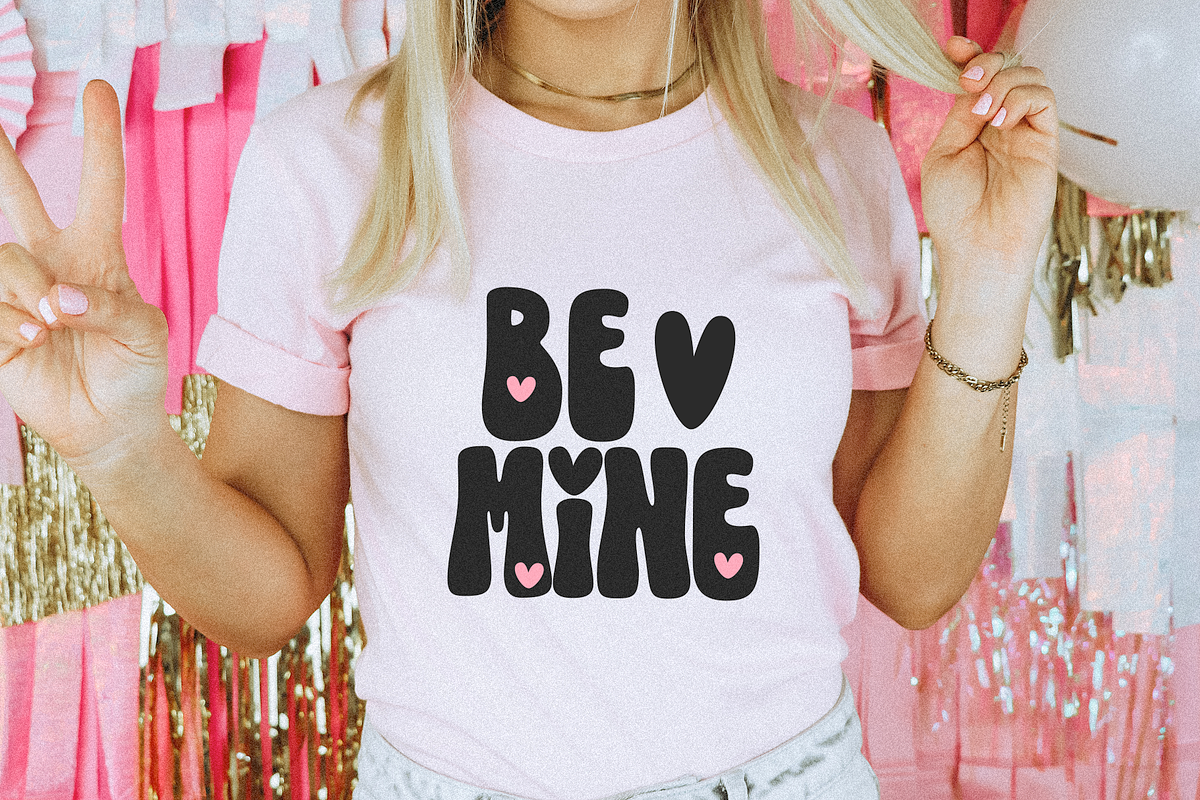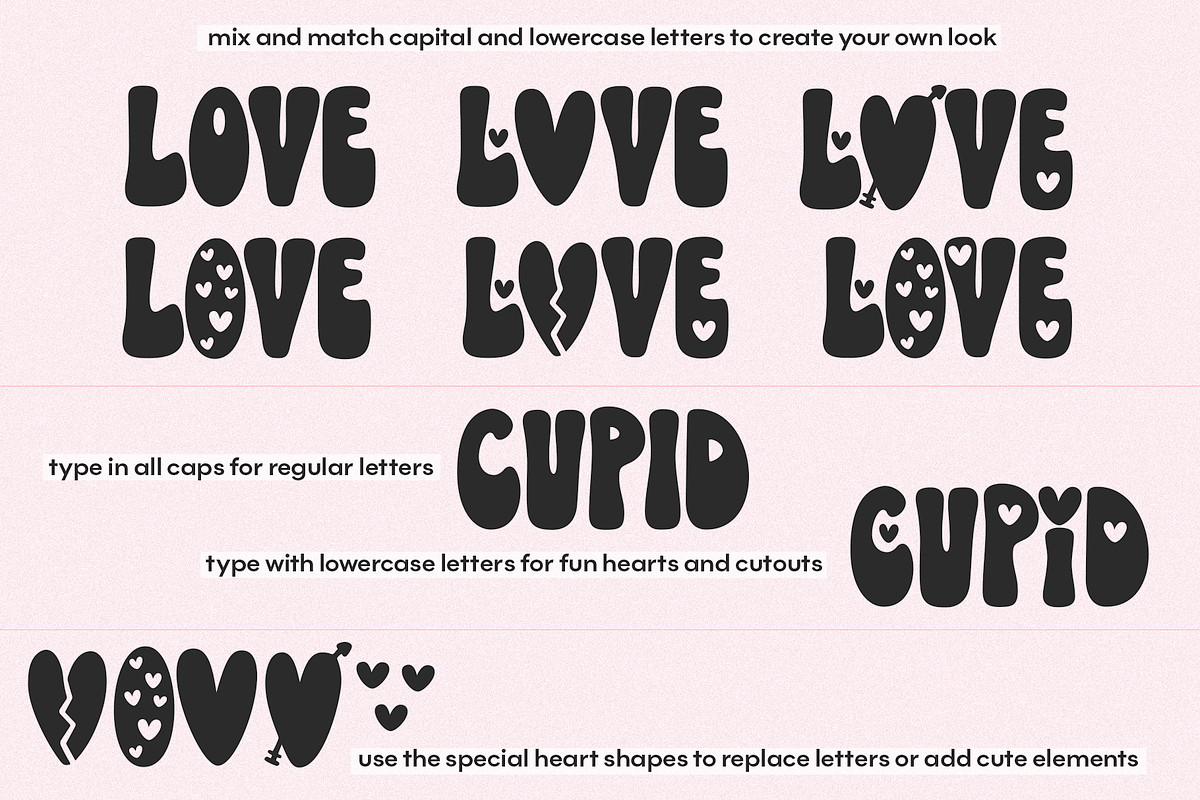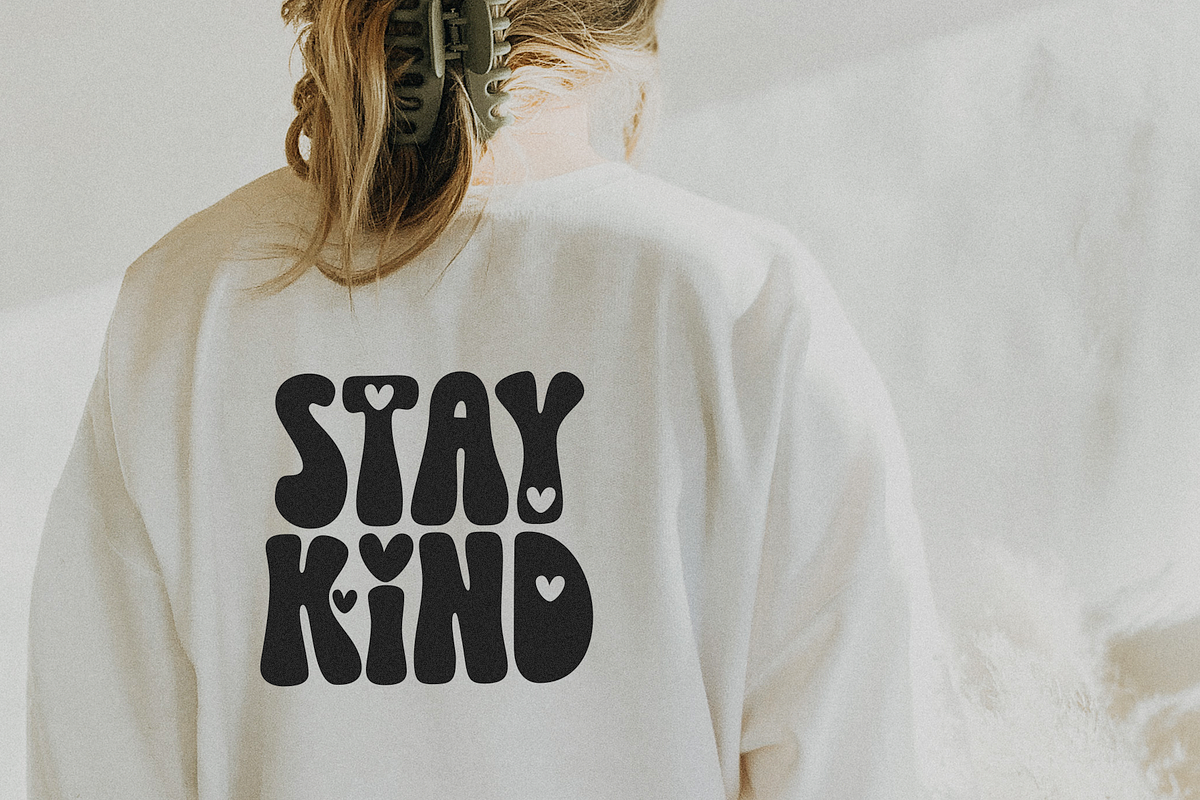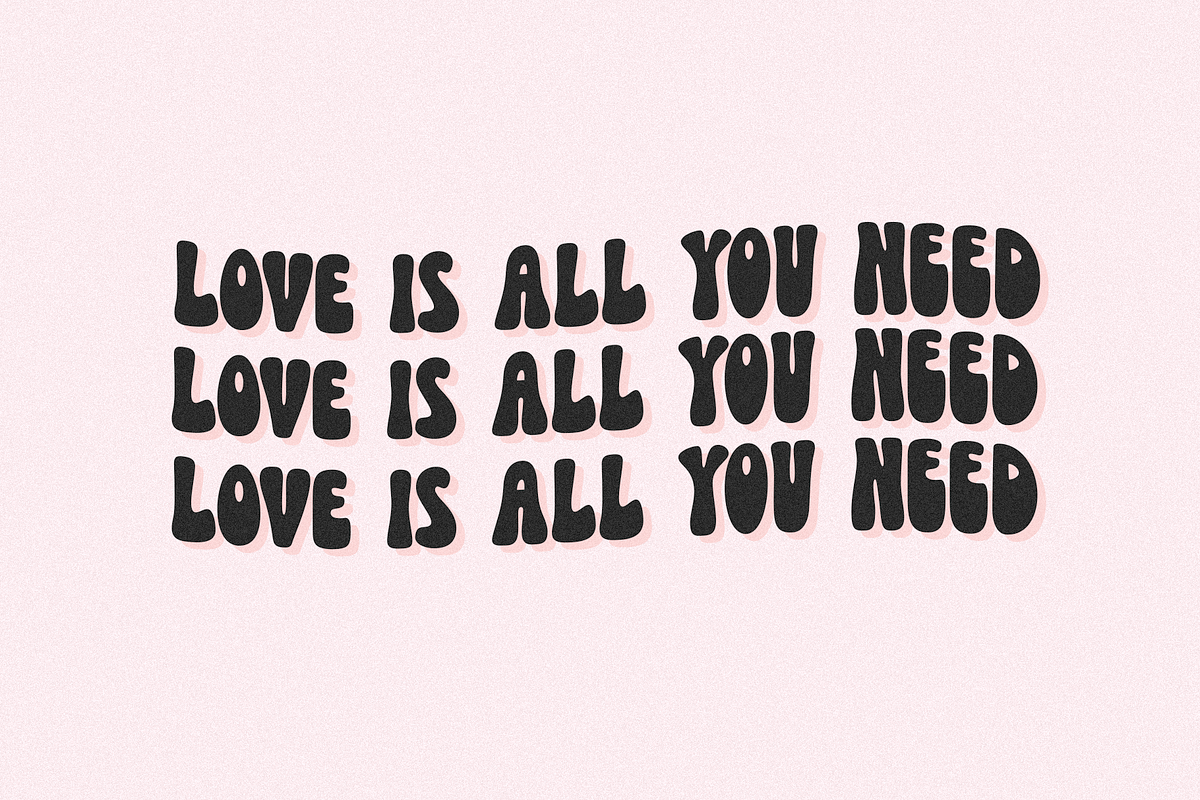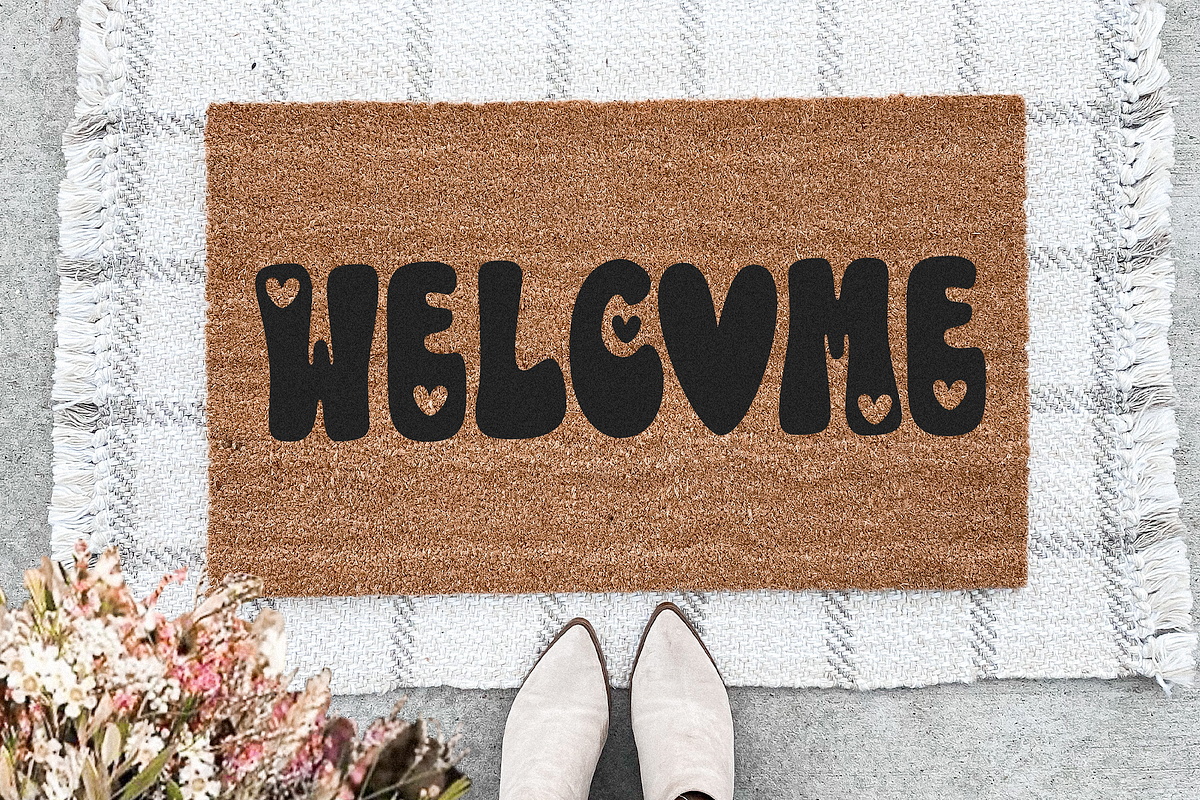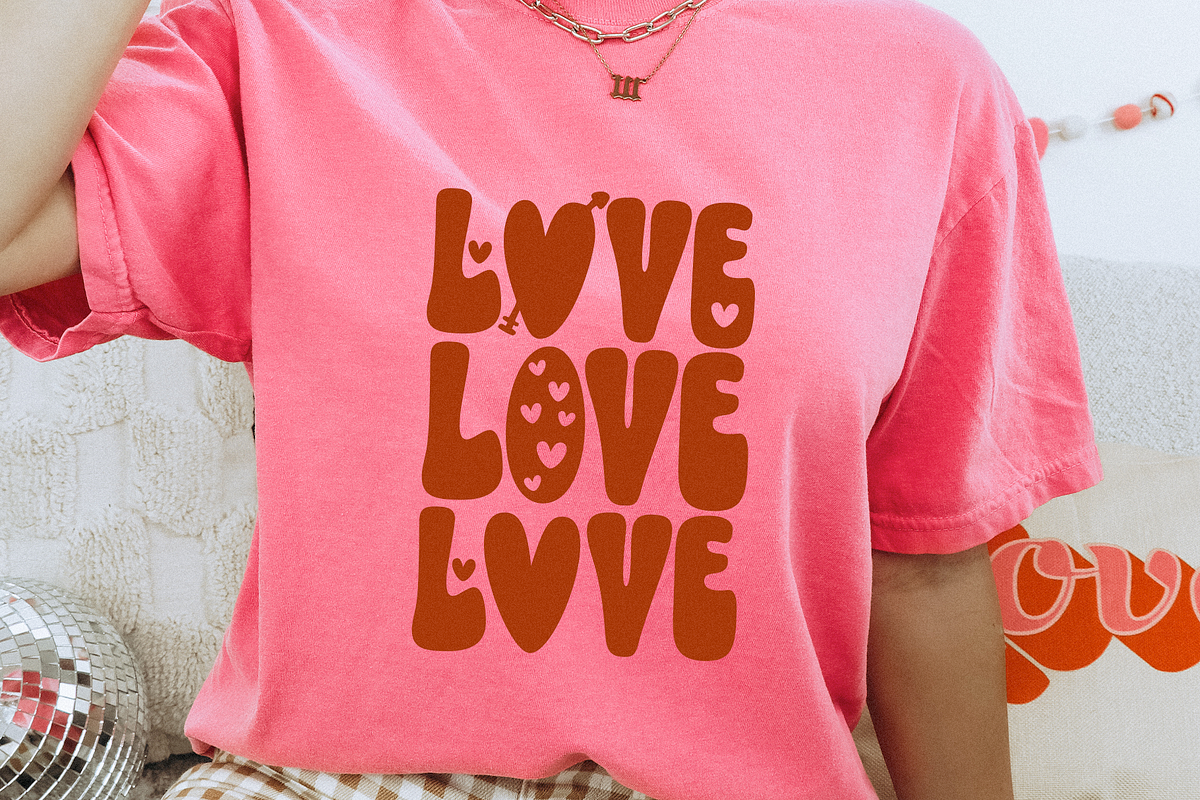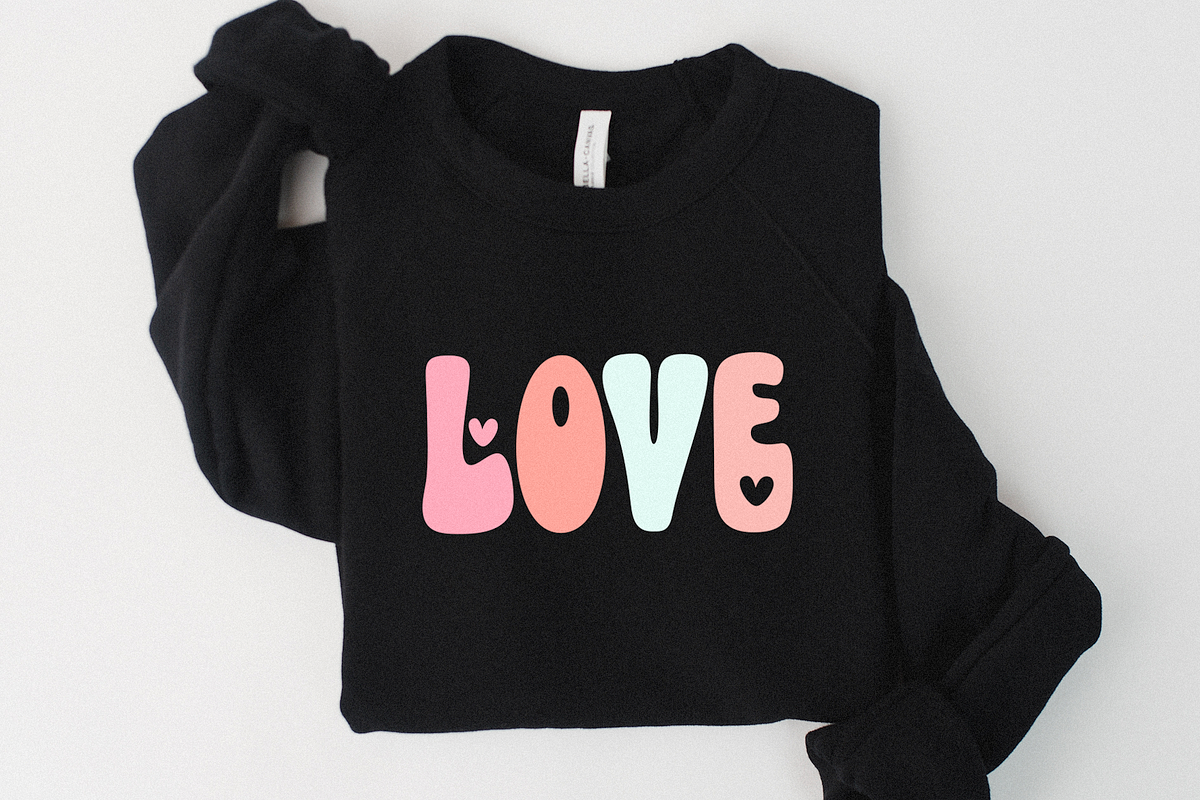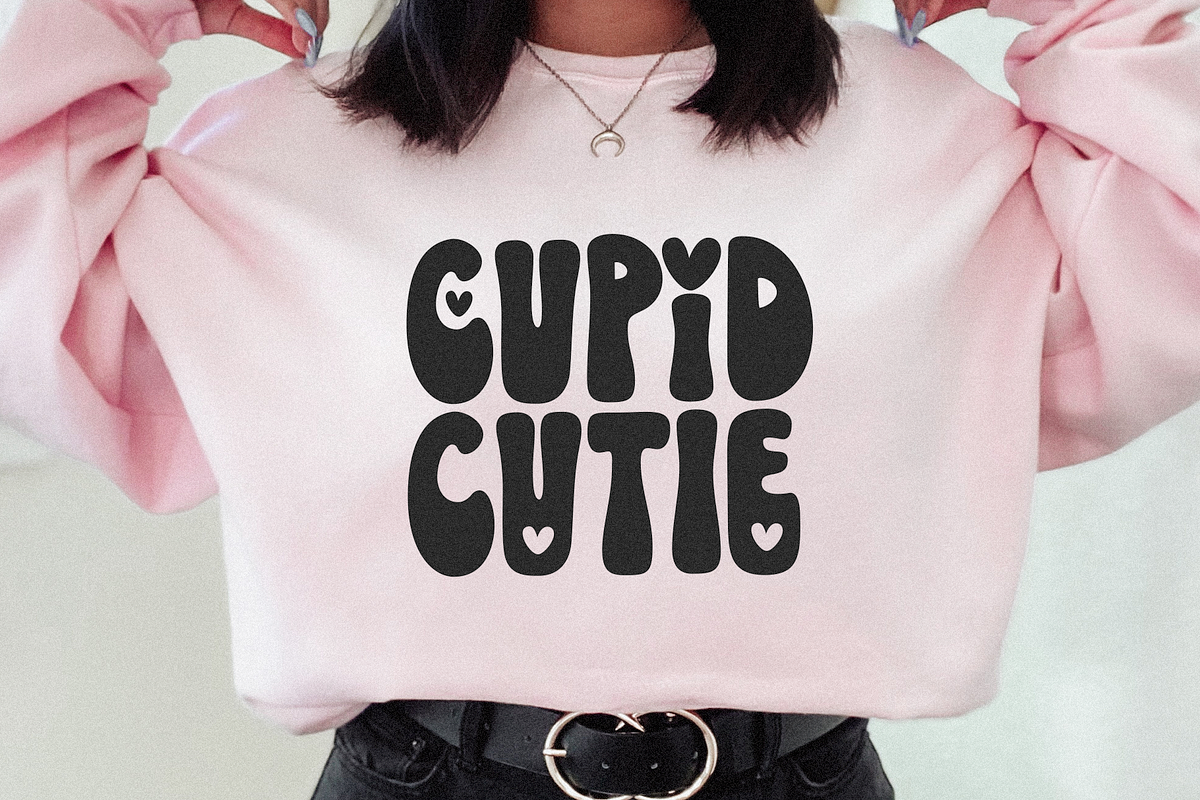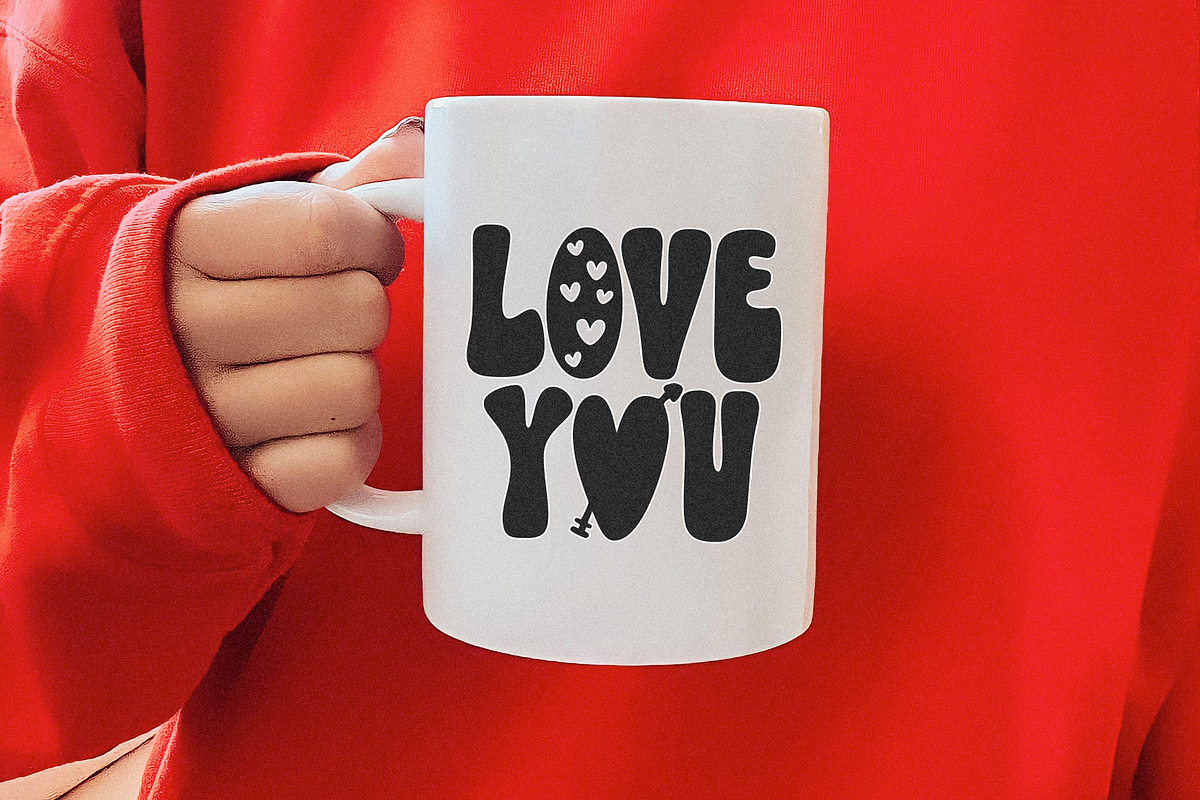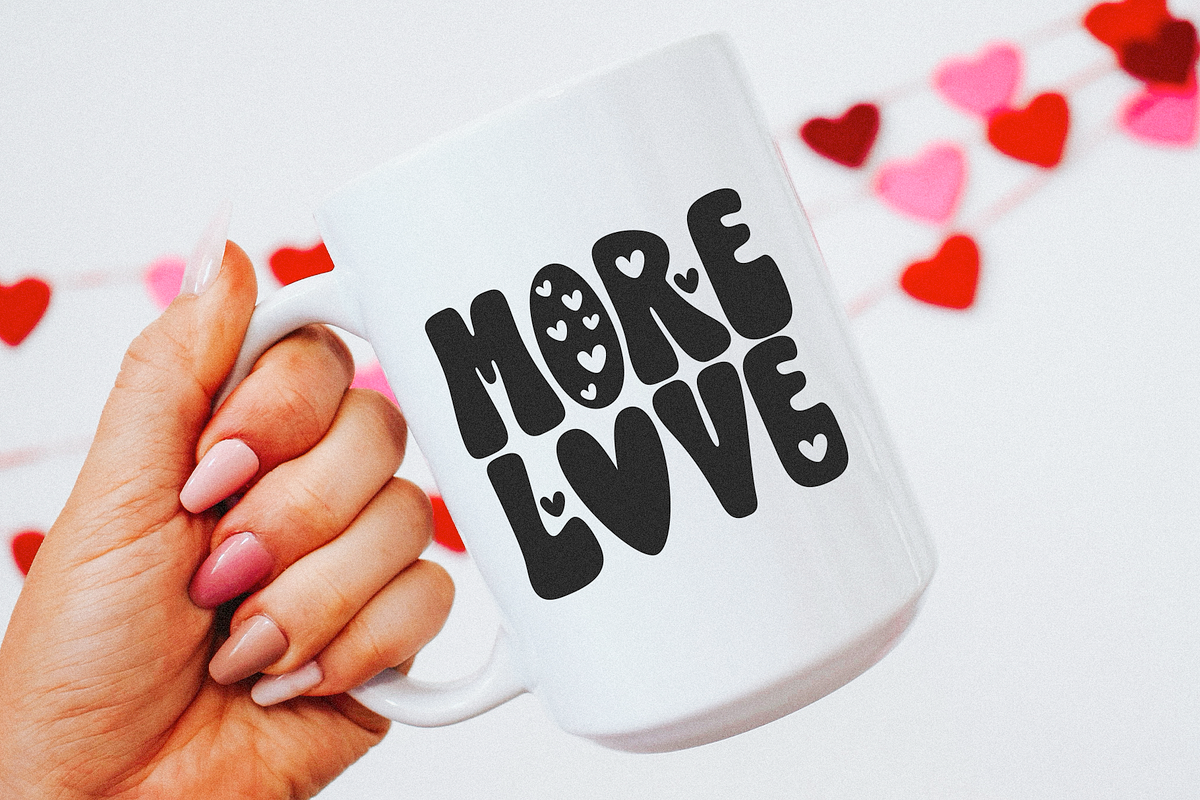
Lovedays | Retro Valentines Day Font
Lovedays Retro is a hand-drawn font perfect for all of your Valentine's Day designs - or any design!
This font includes a basic set of A-Z retro letters and also a handful of fun heart themed letters. Switch between capital and lowercase to create your own unique look!
This is a single font file. There is no shadow font included. You can easily add that to your design in the program of your choice.
This is an ALL CAPS font.